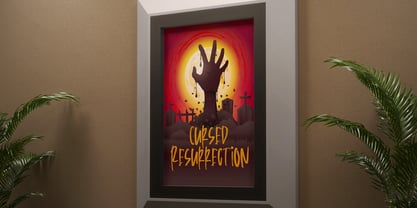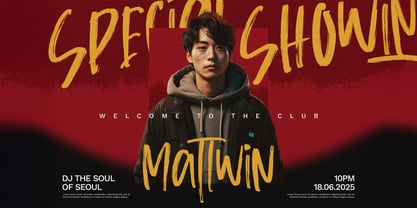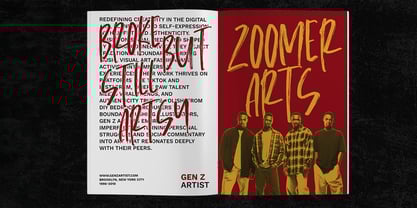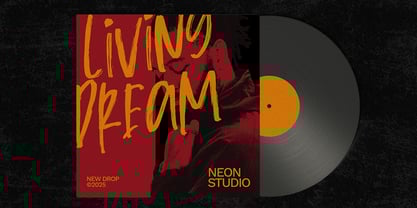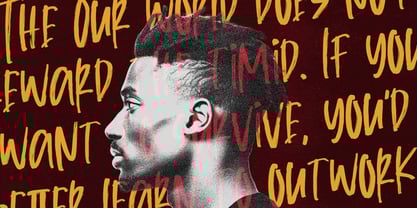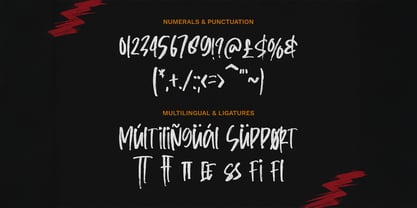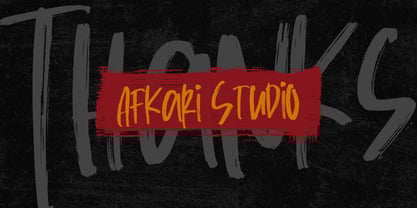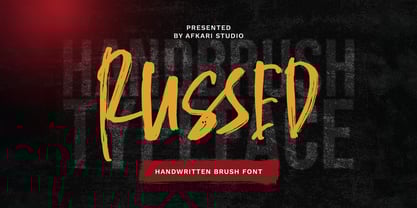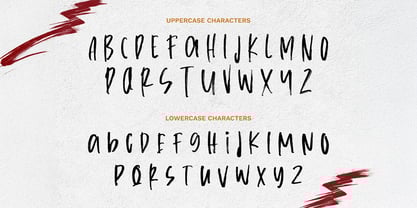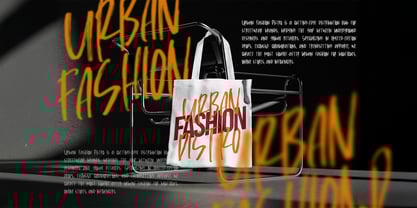
Russed Handbrush
by Afkari Studio
Russed is a bold and expressive handwritten brush font that brings raw energy and personal charm to your designs. Inspired by real brush strokes, Russed delivers an authentic handmade look — perfect for projects that demand both creativity and attitude.
Russed gives your text a dynamic and artistic flair. Its natural flow and textured edges make it feel like the words were painted directly onto the canvas.
Features:
* Complete set of uppercase and lowercase letters, numerals, and punctuation marks
* Unique alternates and ligatures for additional character variety
* Multilingual support includes characters like ä, ö, ü, Ä, Ö, Ü, ß, ¿, and ¡
Let your creativity flow with Russed — the perfect handwritten brush font to add personality and strength to your design work!